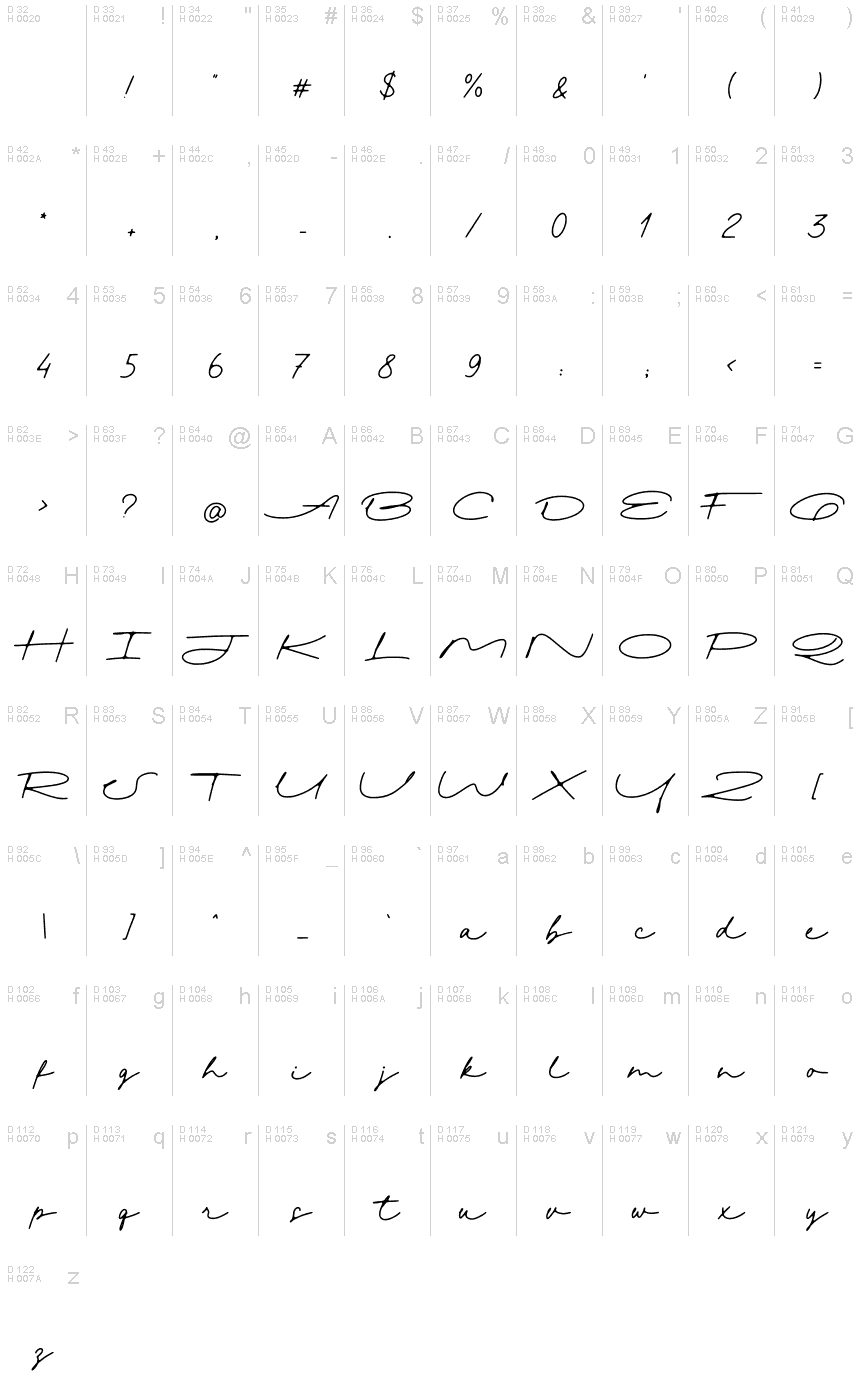
Signatural Demo Regular
Signatural, the handwritten signature font designed by Rochart Studio, effortlessly adds a touch of elegance to any project. Its light weight and expanded width make it perfect for invitations, greeting cards, and other formal documents. Use it to create a personalized logo or branding for your business or blog. The unique handwritten style adds personality and authenticity to any design. Whether you're creating wedding invitations or social media graphics, Signatural is the perfect choice for those seeking a stylish and sophisticated touch. Try it out today and elevate your designs with this exquisite signature font.